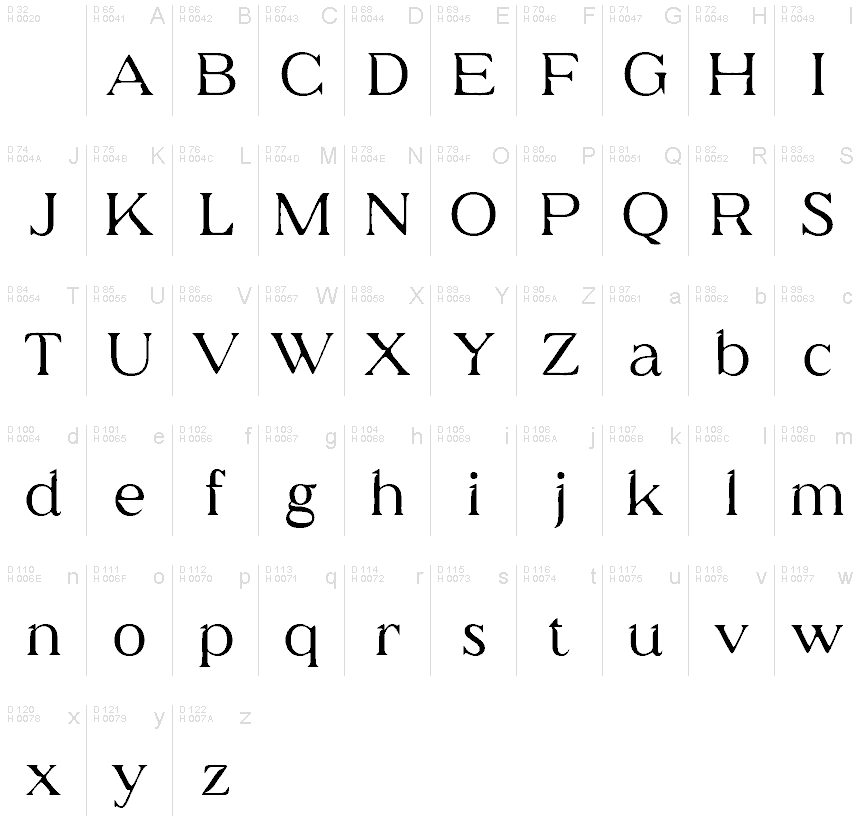
CS Bianca font is the perfect choice for giving your designs that classic and elegant look audiences expect. This refined serif design from Craft Supply Co. features sophisticated vintage-inspired text constructed with beautiful symmetrical serifs. Use it to give posters, labels, book covers, invitations, and other print projects a professional edge.
Whatever the application may be, this free serif font pays for itself tenfold with its incredible versatility across different uses. Decorate websites, products packaging, or business cards with a lovely font-family nobody will ever forget!